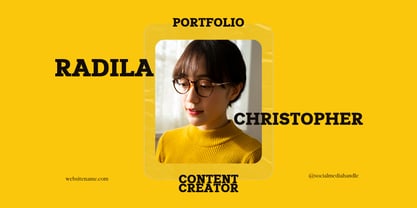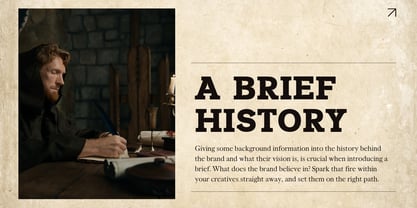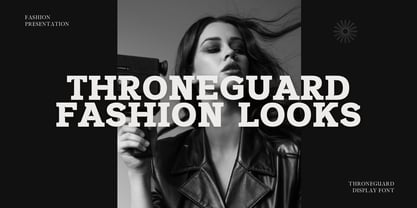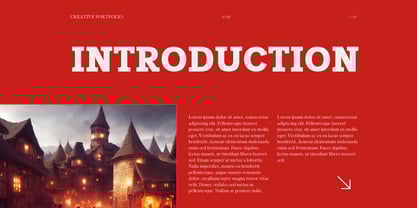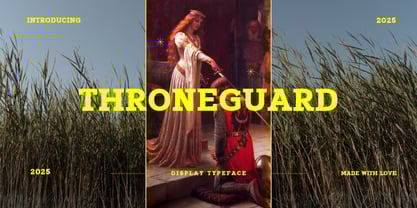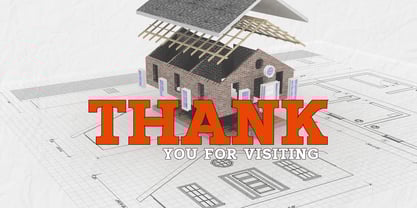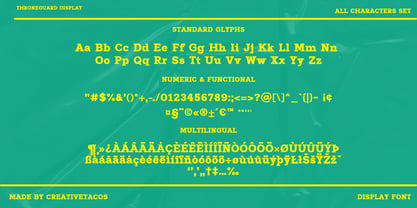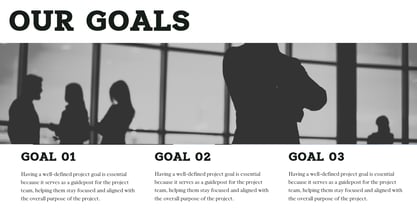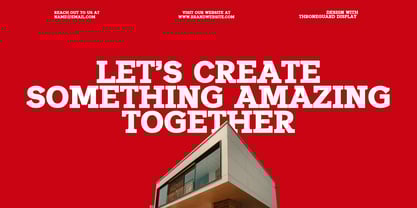
Throneguard Display
by Creativetacos
The Throneguard Display Font Family was designed by Faraz Ahmad and published by Creativetacos. Throneguard Display contains 1 styles. More about this family
A powerful display typeface built for regal authority and medieval grandeur. THRONEGUARD Display font combines bold slab serif construction with contemporary readability, creating a font that's perfect for designers, publishers, game developers, and creatives looking to add commanding presence to their projects.
Features:
• Bold Royal Aesthetic: Authoritative slab serif construction that captures medieval grandeur with modern flair
• Multiple Character Sets: Complete with standard glyphs, numerals, functional characters, and multilingual support
• Versatile Applications: Perfect for book covers, game titles, branding, editorial headlines, and fantasy-themed designs
• Commanding Personality: Strong, distinctive letterforms that demand attention
• Meticulous Construction: Balanced proportions that maintain legibility without compromising on character
What's Included:
• Standard alphanumeric glyphs (A-Z, a-z, 0-9)
• Numeric & functional characters for comprehensive design flexibility
• Multilingual support with extensive diacritic marks
• Punctuation and special characters
THRONEGUARD Display Typeface doesn't just suggest authority—it commands it with careful attention to typographic detail. Each character is crafted to maintain readability while delivering the striking visual impact that defines powerful display typography.
Whether you're designing fantasy book covers, creating game titles, developing brand identities, or seeking attention-grabbing headlines, THRONEGUARD Display Typeface delivers royal results with distinctive character.
Designers: Faraz Ahmad
Foundry: Creativetacos